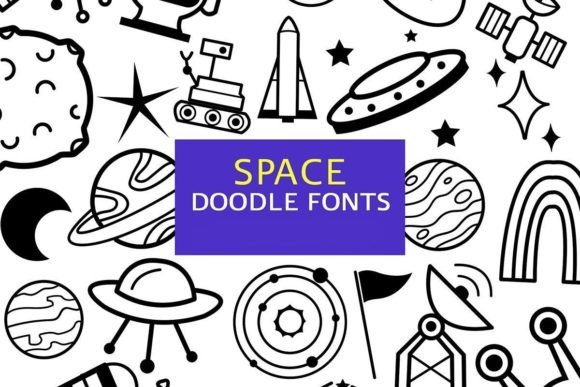
Introducing Space Doodle Font, a captivating collection of dingbat fonts that will take your projects to new heights of creativity and style. Created by digitalplannerland, this font family is not only visually appealing but also incredibly versatile, making it the perfect choice for web design in 2017.
Why settle for ordinary when you can add a touch of fun and uniqueness to your designs? With Space Doodle, you can effortlessly elevate your projects and make them stand out from the crowd. This font is packed with a variety of doodle-inspired symbols, giving you the freedom to express your creativity in countless ways.
Experience the joy of exploring the vast universe of possibilities that Space Doodle offers. From playful rockets and quirky aliens to whimsical planets and adorable spaceships, this font family is a treasure trove of delightful icons that will captivate your audience. Let your imagination run wild and infuse your designs with a sense of wonder and excitement.
But Space Doodle is not just about aesthetics – it's also incredibly practical. With its extensive collection of symbols, this dingbat font is a valuable asset for any web designer. Whether you're looking to enhance your website's navigation, create eye-catching buttons, or add visual interest to your blog posts, Space Doodle has got you covered.
What sets Space Doodle apart from other dingbat fonts is its impeccable attention to detail. Each symbol has been meticulously crafted to ensure the highest quality. The clean lines, smooth curves, and intricate designs will make your projects shine with professionalism and sophistication.
When you download Space Doodle, you're not just getting a font – you're unlocking a world of endless possibilities. Say goodbye to dull and uninspiring designs and hello to a vibrant and captivating visual experience. Let Space Doodle be your secret weapon for creating memorable and engaging content that leaves a lasting impression.
So why wait? Take your projects to infinity and beyond with Space Doodle Font. With its captivating collection of doodle-inspired symbols, this font family is the perfect choice for web designers looking to make a statement in 2017. Download Space Doodle today and let your creativity soar to new heights!